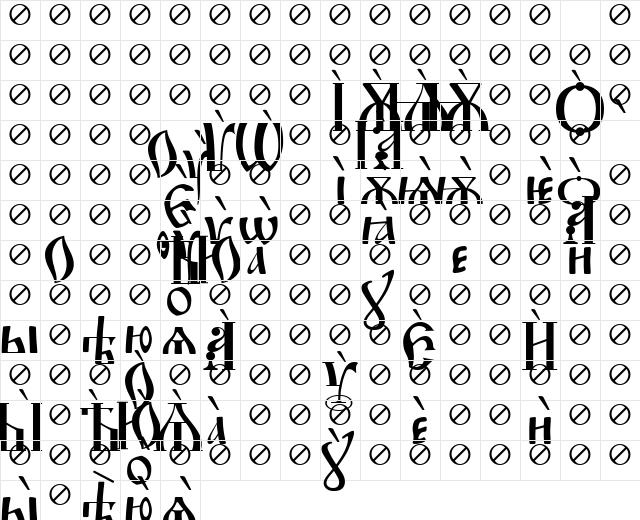
Irmologion Grave Normal
Design Context for Irmologion Grave Typeface
Irmologion Grave is a composed and adaptable typeface that performs quietly and consistently across a wide range of design contexts.